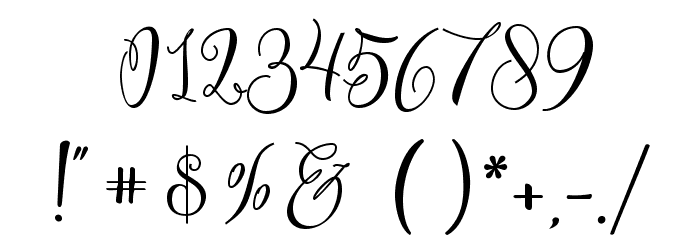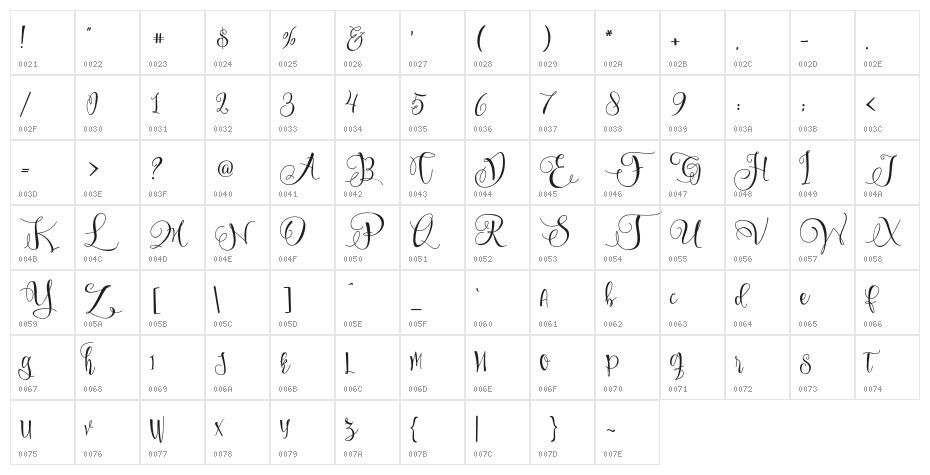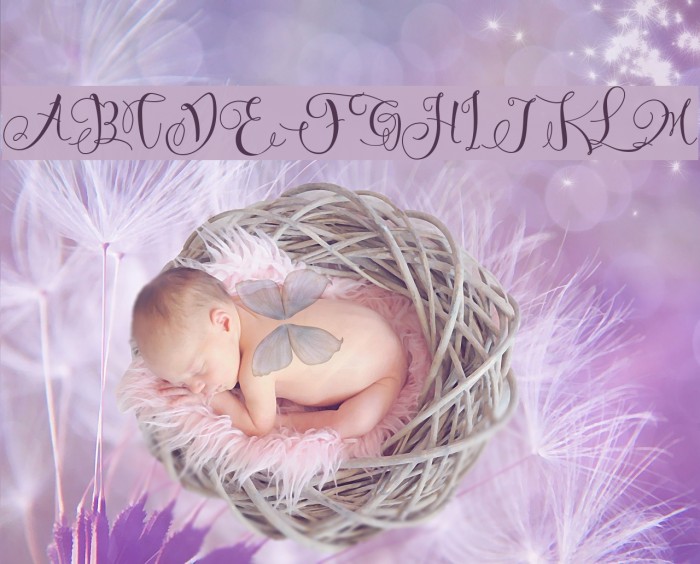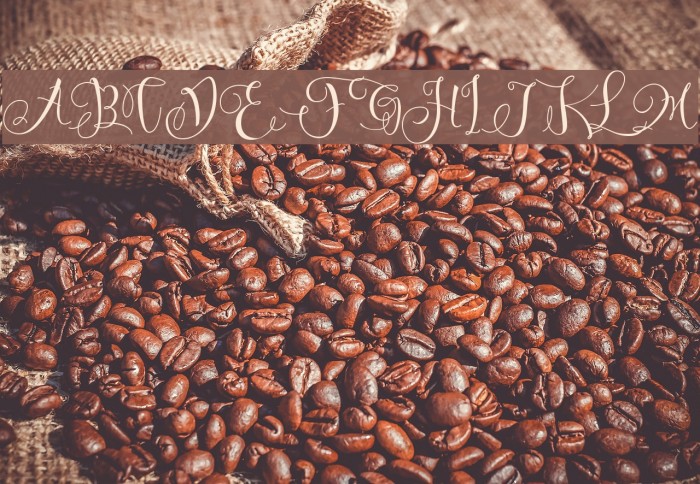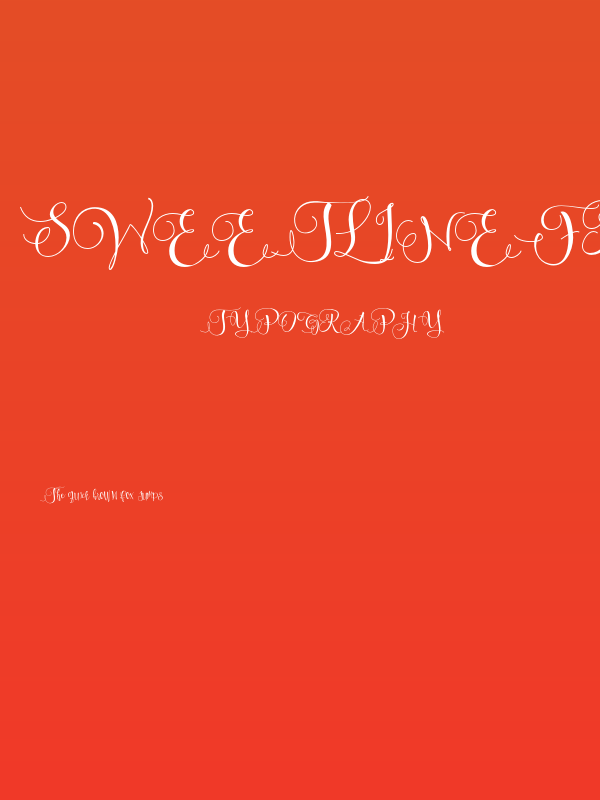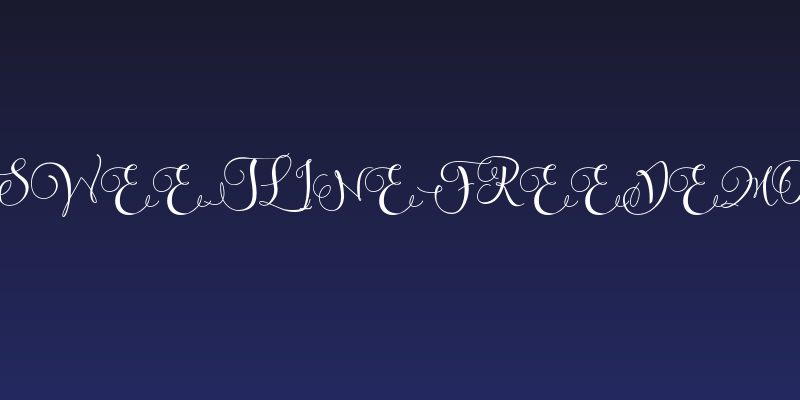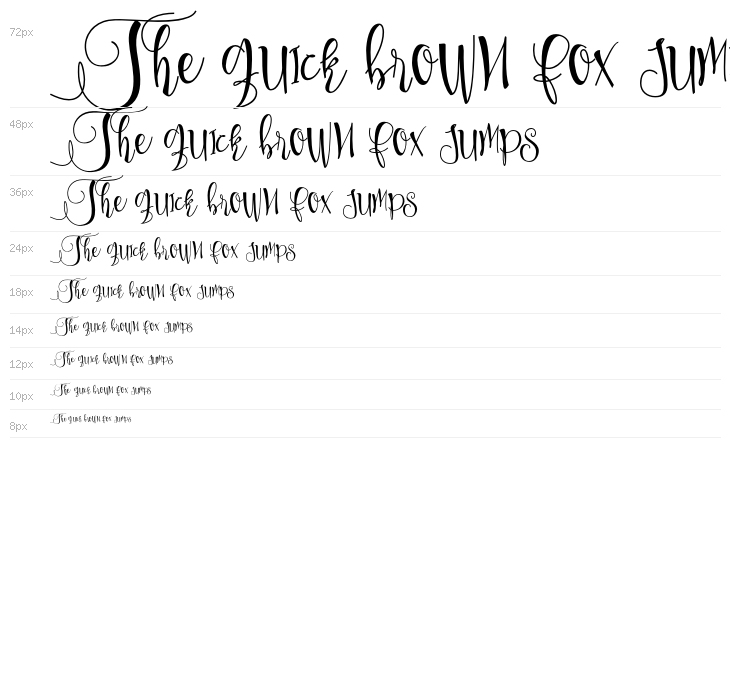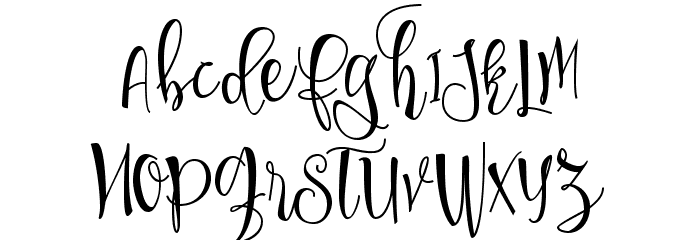
SweetlineFreeDemo Font
SweetlineFreeDemo Description
This font features an elegant and flowing script style, characterized by its intricate swirls and loops. The uppercase letters are particularly ornate, with elaborate flourishes that give a sense of sophistication and grace. The lowercase letters maintain a more restrained elegance, balancing readability with decorative elements. Numbers and special characters are designed to match the overall aesthetic, with a consistent stroke width that adds to the font's cohesive appearance. This font is ideal for projects that require a touch of elegance and creativity, such as invitations, branding, and decorative text.
| Proposed Projects | Ideal for wedding invitations, branding, decorative text, and creative projects. |